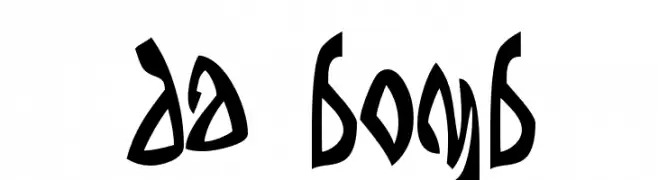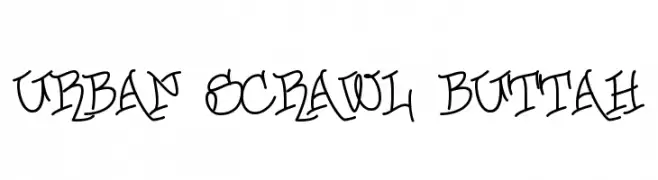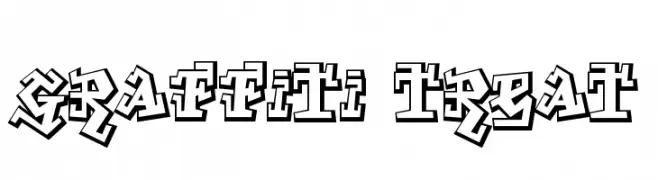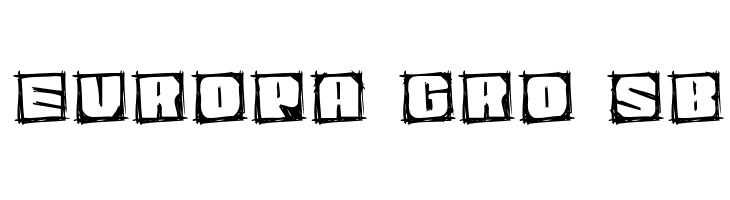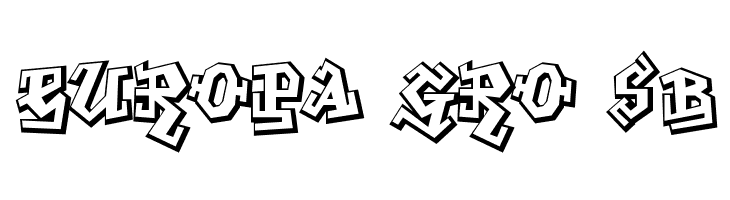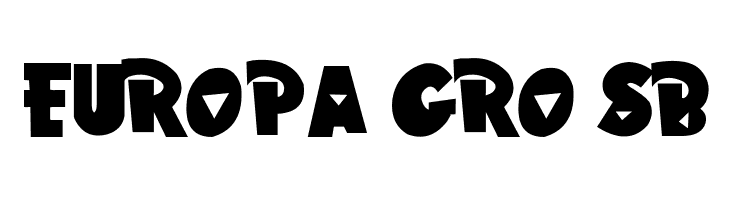
A bold, grunge-style font with a sketchy, graffiti-inspired look.
A bold, geometric font with sharp angles and an outlined, futuristic design.
A bold, graffiti-inspired font with dynamic, stylized characters.
A bold, graffiti-inspired font with dynamic curves and a playful, artistic style.
A dynamic, edgy font with sharp, angular strokes and a modern aesthetic.
A bold, graffiti-inspired font with a three-dimensional effect and sharp, angular characters.
A bold, angular font with a playful and rebellious style.
A bold, distressed font with a rugged, grunge aesthetic.